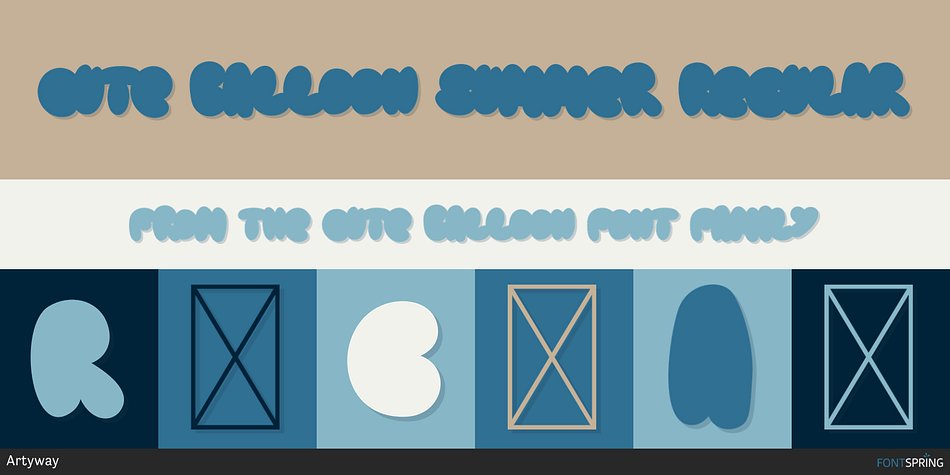
CUTE BALLOON SUMMER REGULAR
Designed by Yehor Lisnyi, Cute Balloon is a display sans and novelty font family. This typeface has five styles and was published by Artyway.
The Summer Font - Bouncy and Cheerful, this Cute Balloon Font for Fun Designs
Bring a fun and playful vibe to your designs with our adorable balloon font, available in color, doodle, blot versions and bonus! This font features cute balloon letters with smiling faces, perfect for adding a touch of whimsy to invitations, posters, and other designs. All versions are easy to download and come with commercial licensing, making it easy to add a playful touch to your next project.
Colored style font for a vibrant and cheerful look
Doodle-style font for hand-drawn feel
Blot style for a trendy and textured look